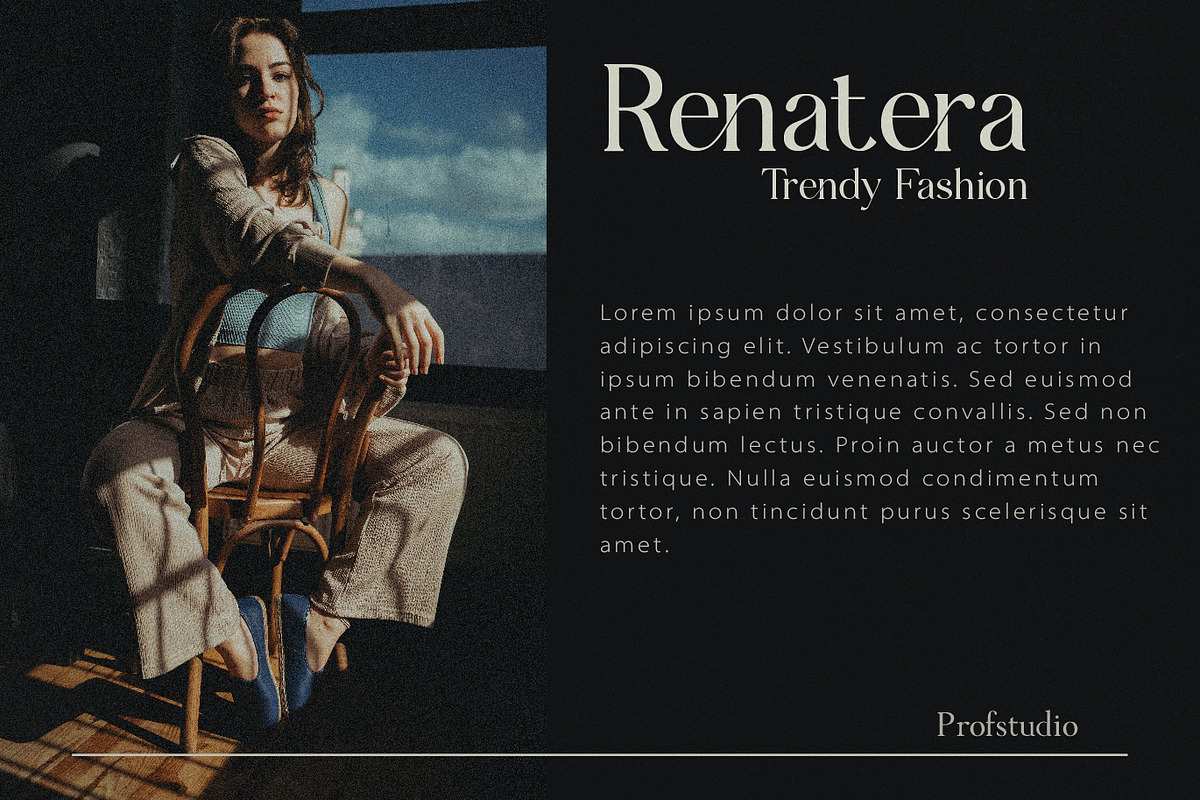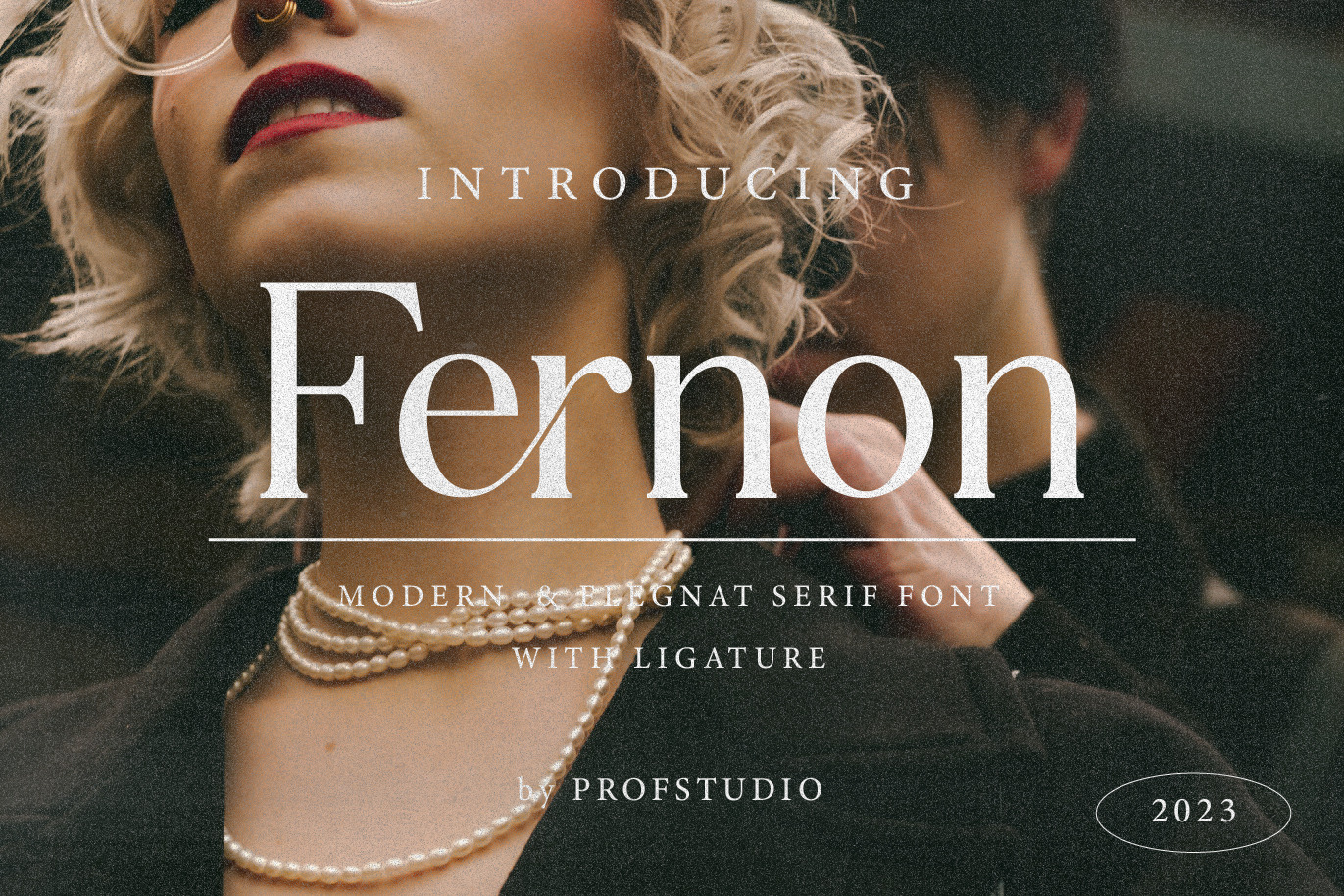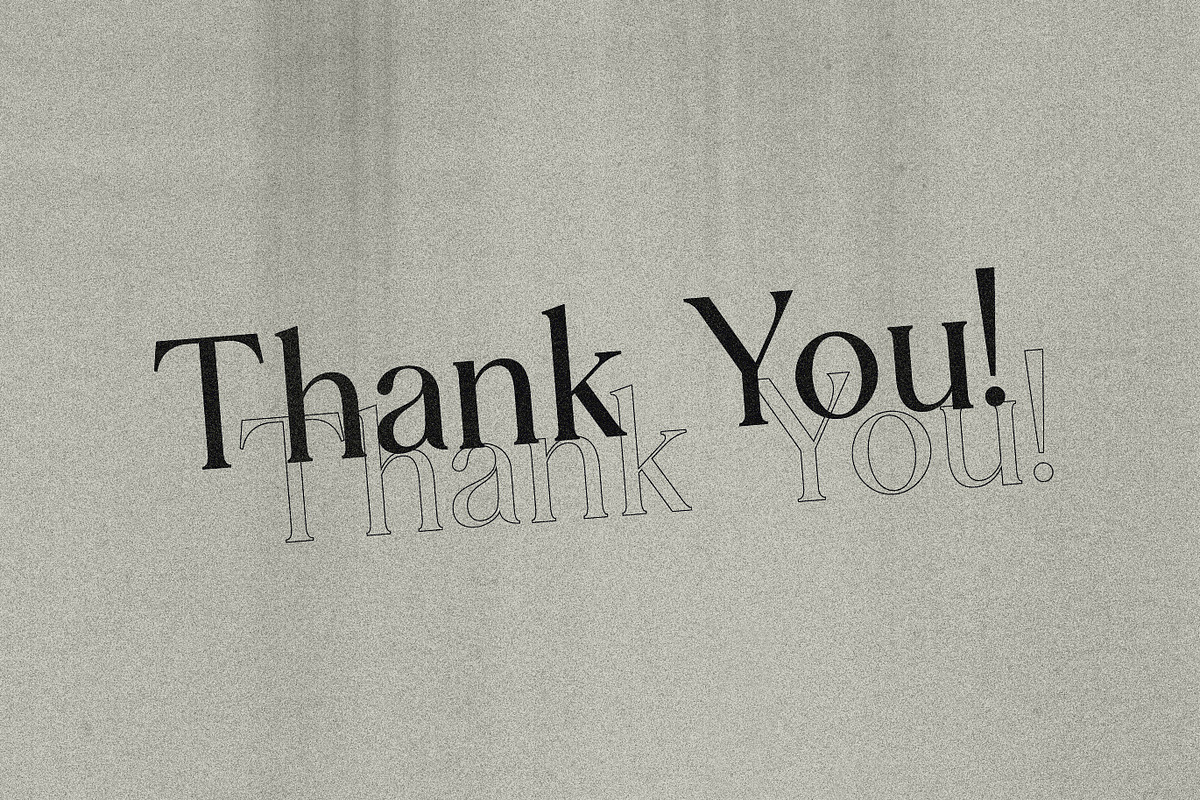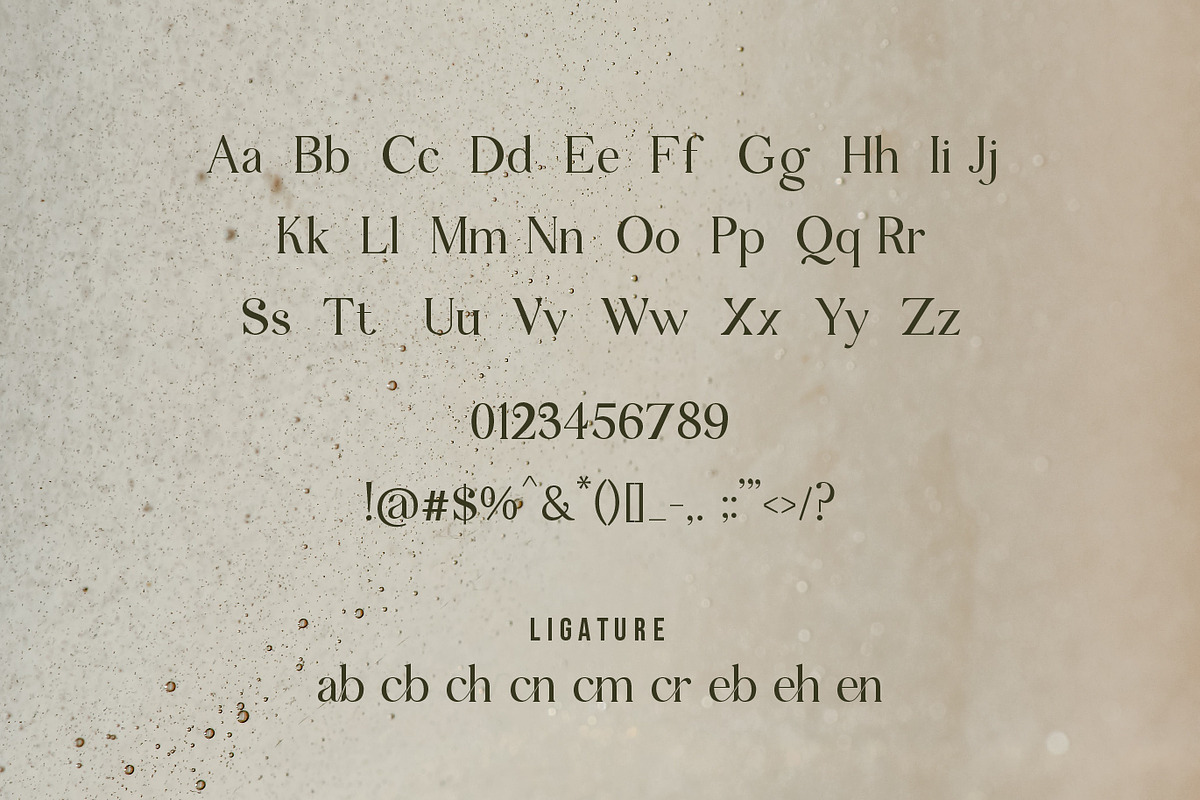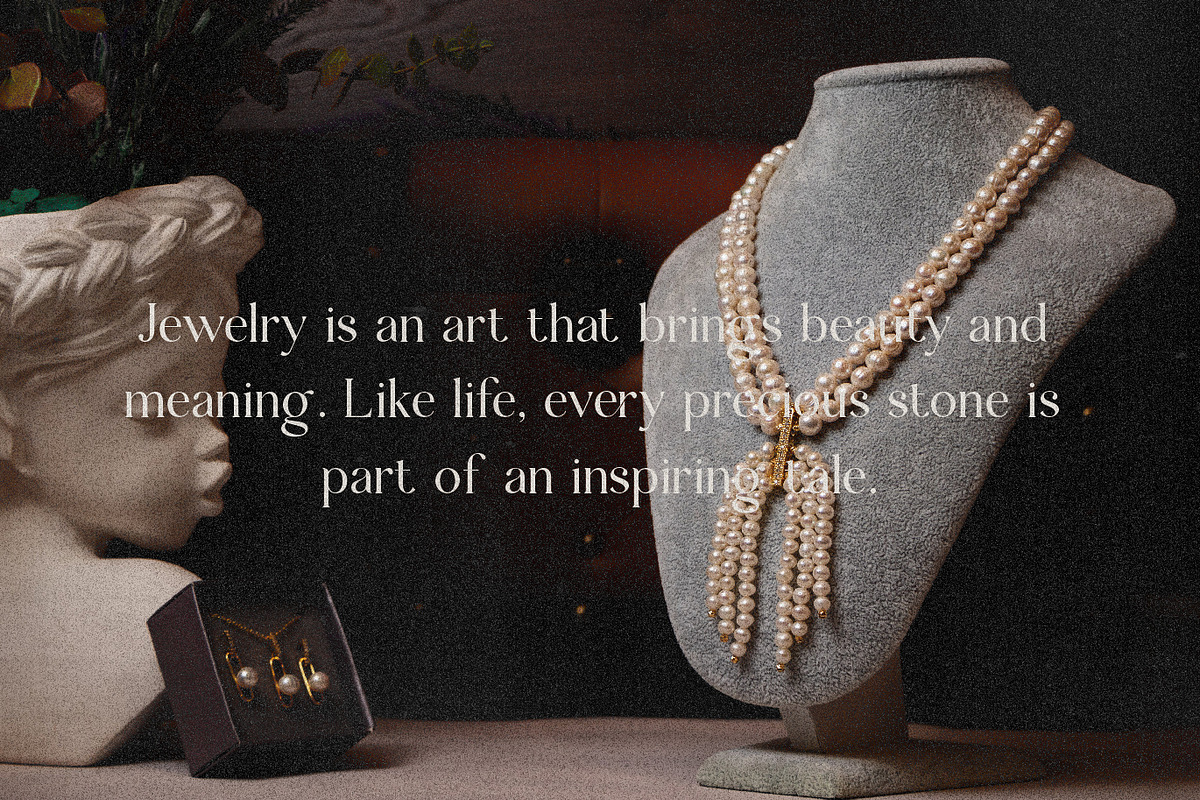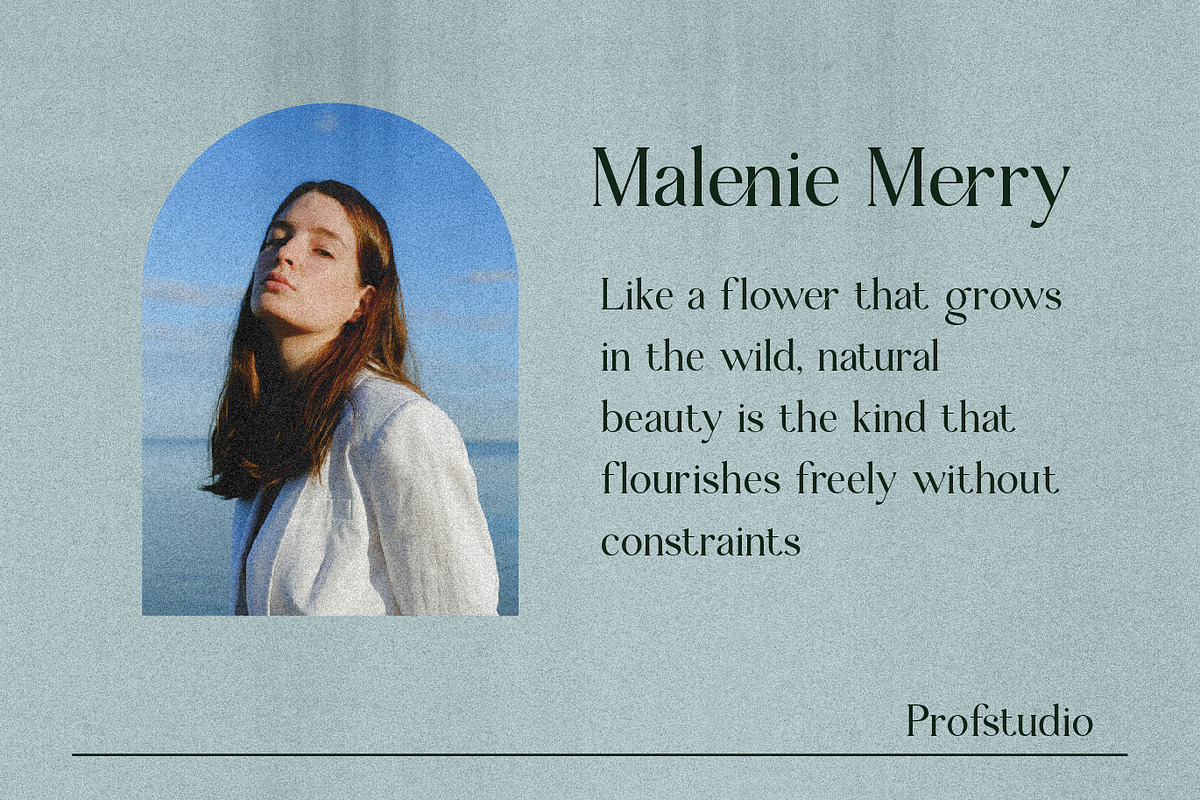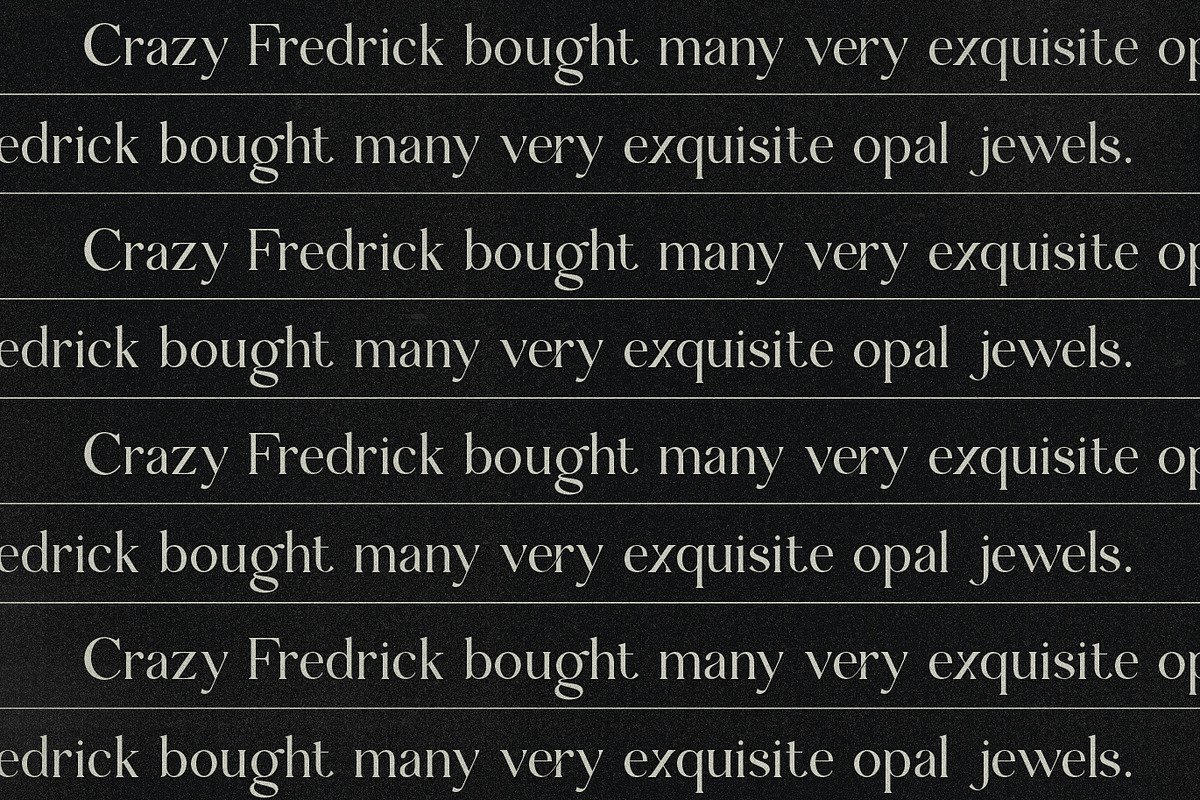
Fernon - Modern Serif Font
Fernon - Serif Font which can be interpreted professional. we keep this font looks modern, luxury, trendy, readable, stylish, catchy and easy to use.
Fernon - is the great choice for event design ,magazine, brand design, invitation, and many other design project. Fernon here to make your work to high level!!!